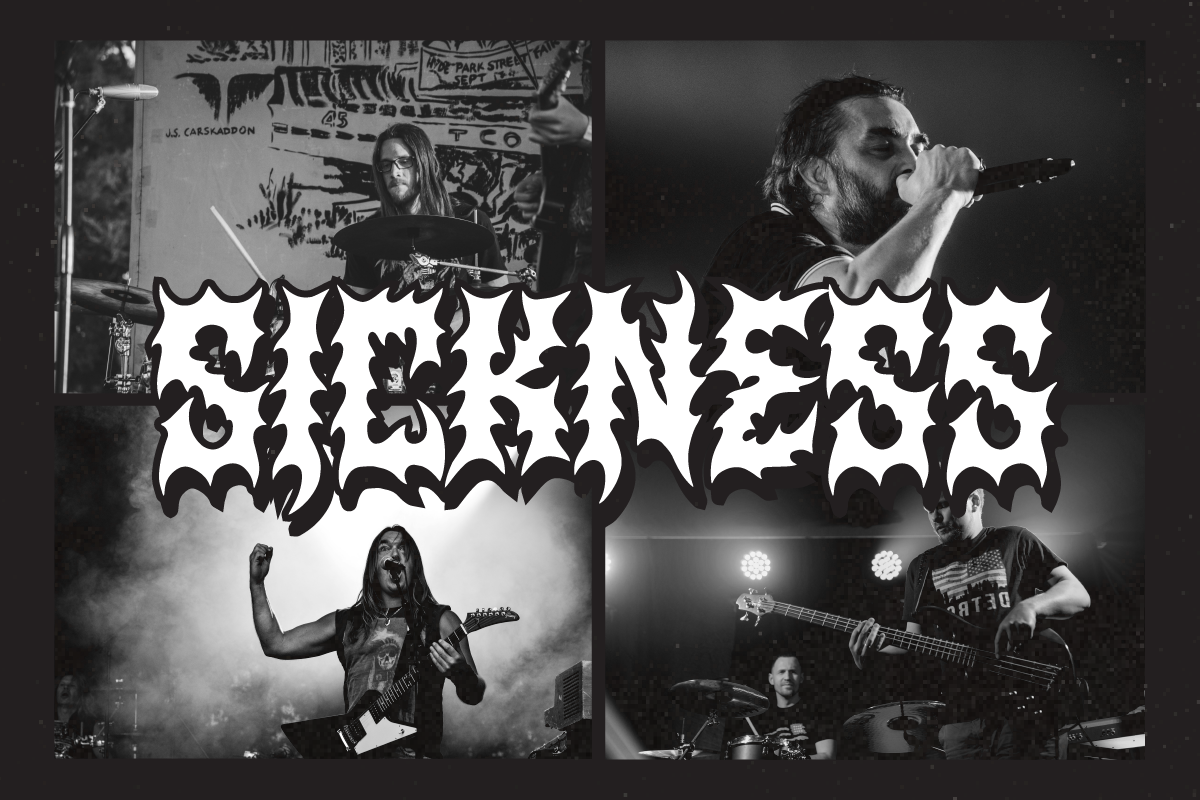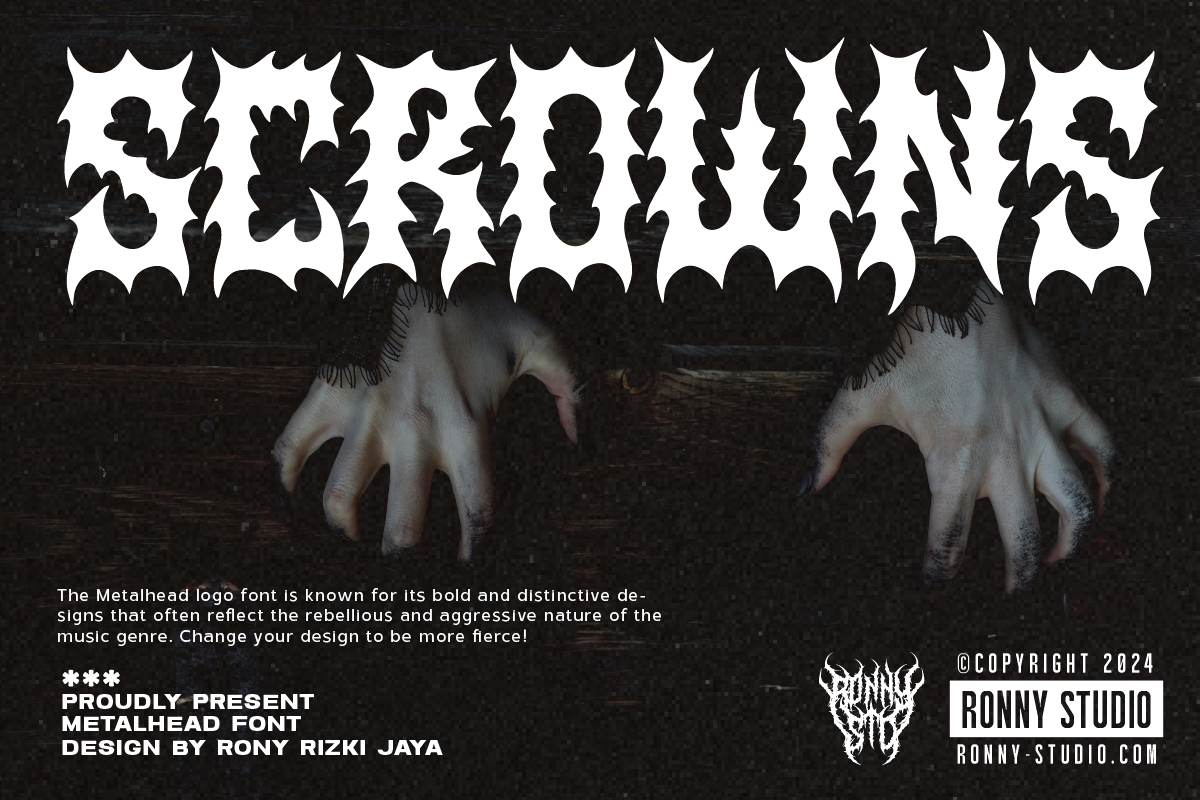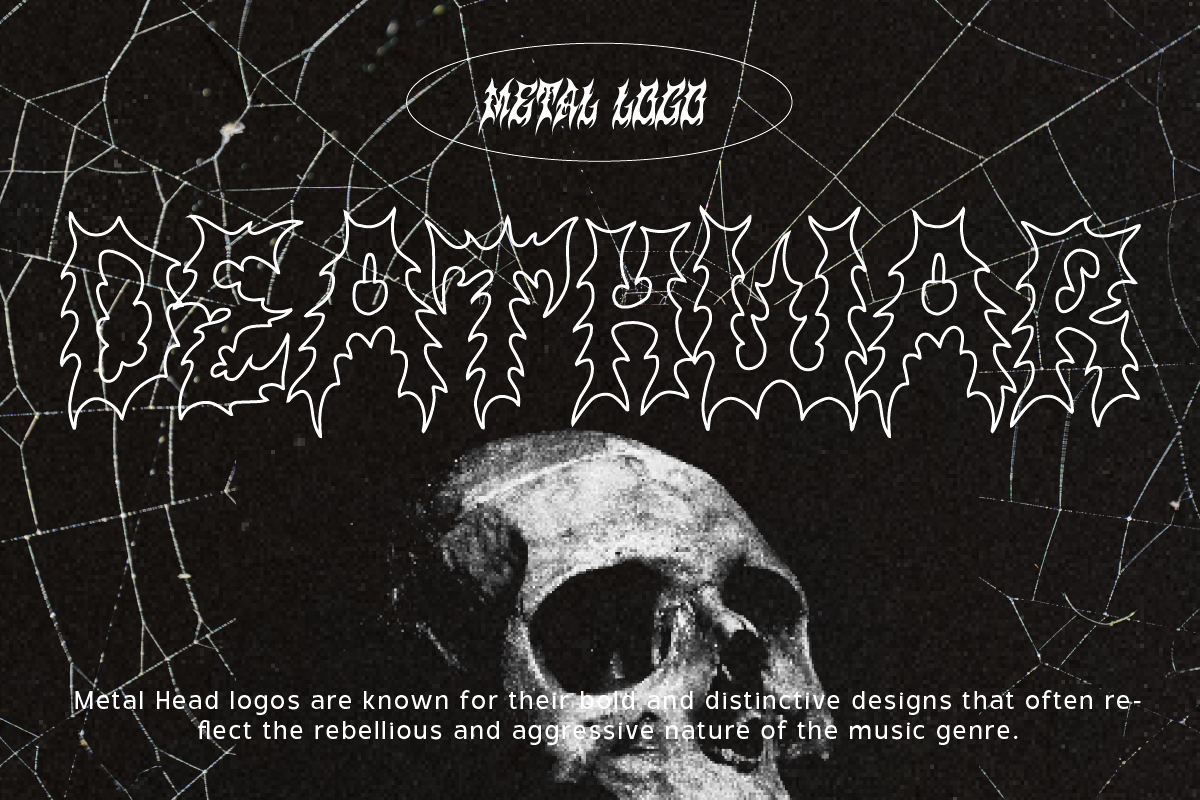
Scrowns Brutal Metalhead Font
Scrowns – A Fierce & Aggressive Metal Font for Extreme Designs 🔥🎸
Unleash the power of heavy metal with Scrowns, a bold and rebellious font crafted for metal bands, album covers, horror themes, and extreme branding. Inspired by brutal lettering and dark aesthetics, this typeface is perfect for those who want to make an intense and unforgettable impact.
💀 Key Features:
✅ Sharp & Bold Lettering – Inspired by extreme metal and gothic styles.
✅ Dark & Aggressive Aesthetic – Perfect for horror, rock, and underground themes.
✅ Versatile Usage – Ideal for logos, posters, merchandise, and music branding.
✅ Supports Multiple Languages – Includes complete characters and alternates.
🔥 Embrace the Darkness with Scrowns – The Ultimate Metalhead Font!